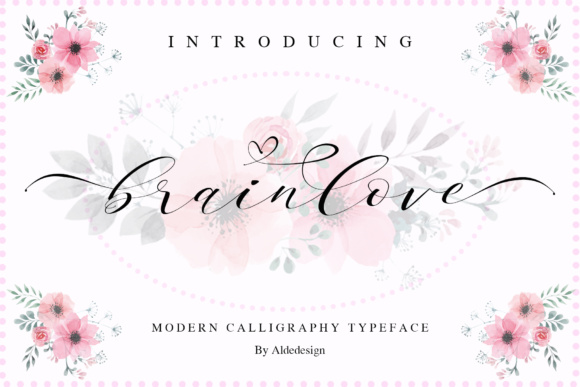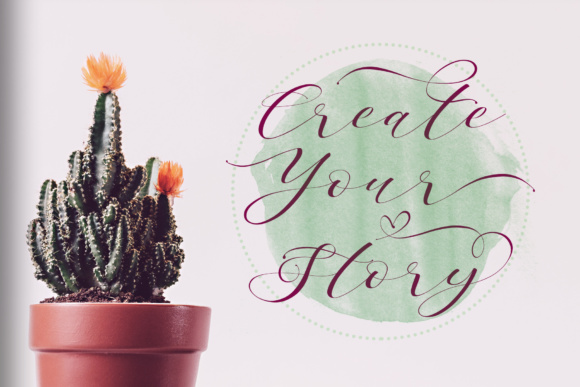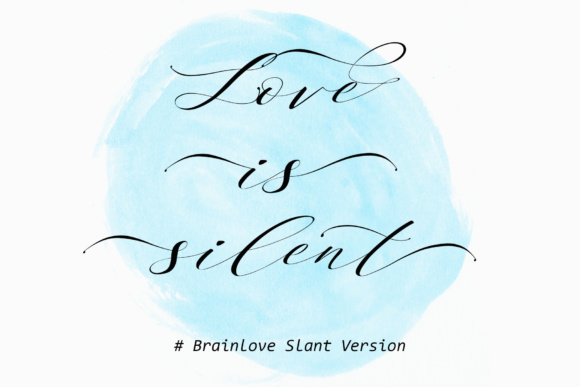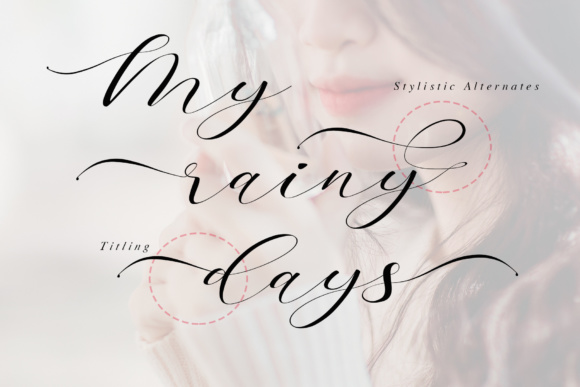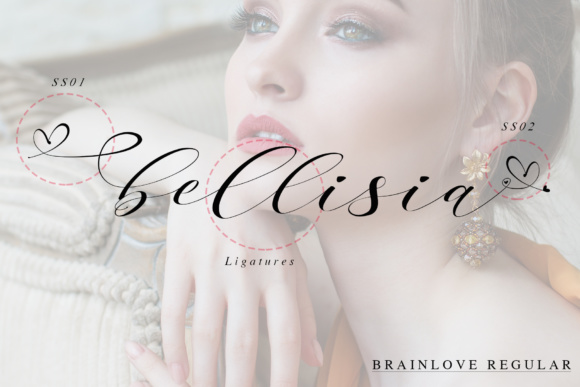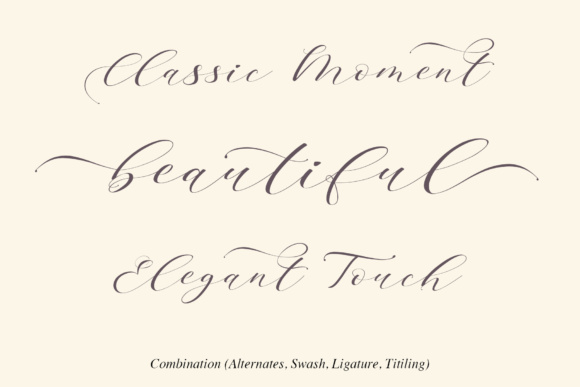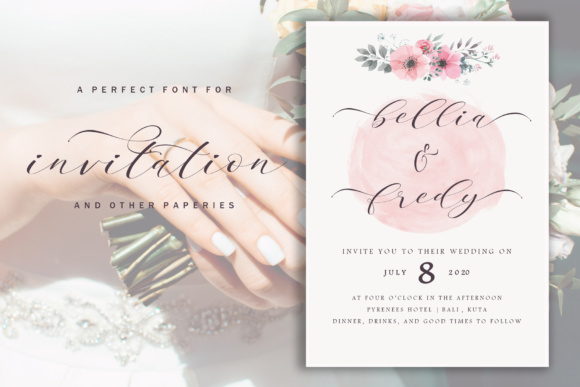
Brainlove Script Font
About Brainlove Script Font
Brainlove Beautiful Script is a stylish calligraphy font that features a varying baseline, smooth line, classic and elegant touch. it can be used for various purposes such as headings, signatures, logos, wedding invitations, t-shirts, letterheads, signage, labels, news, posters, badges etc.